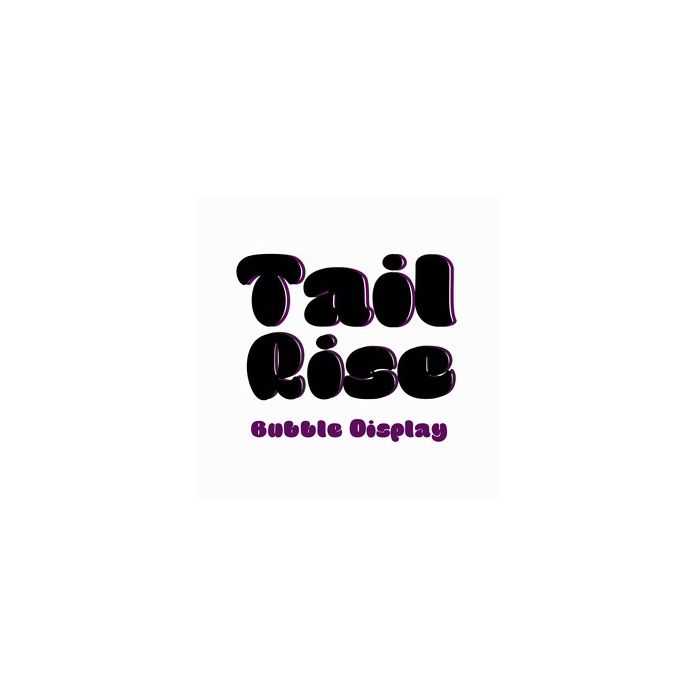
Tail Rise Font
Unique Tail Rise bubble logo display Perfect for event projects, products, crafts, invitations, etc. Includes alphabet, numbers, and punctuation.